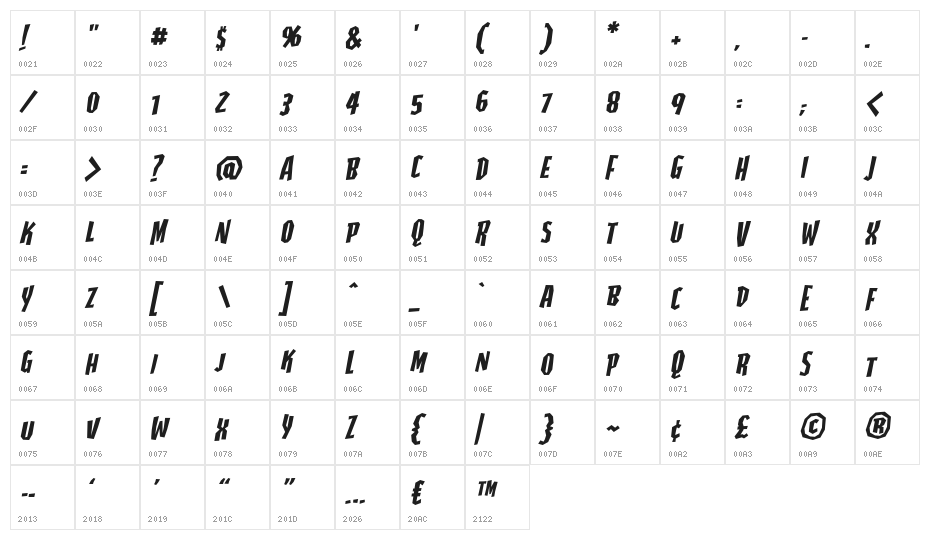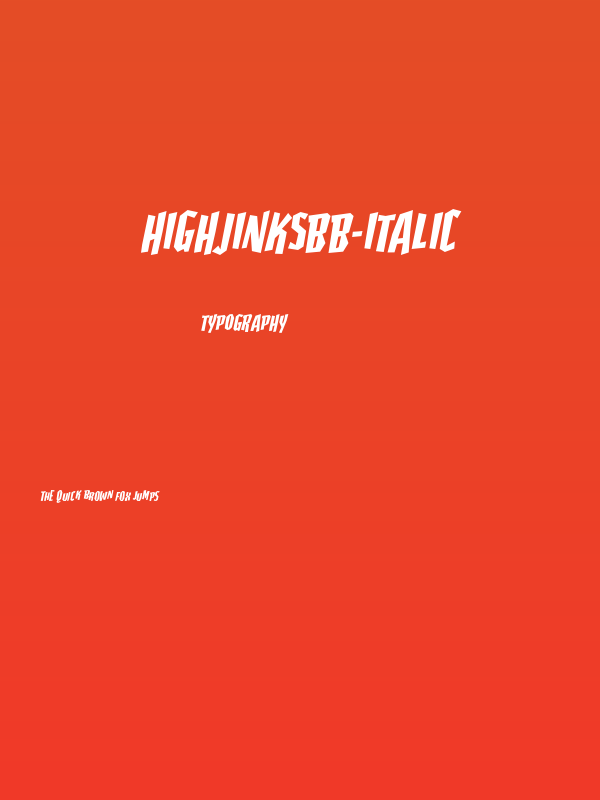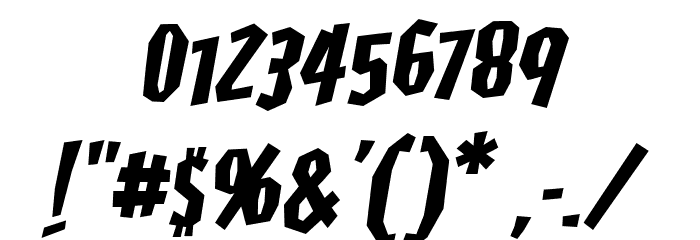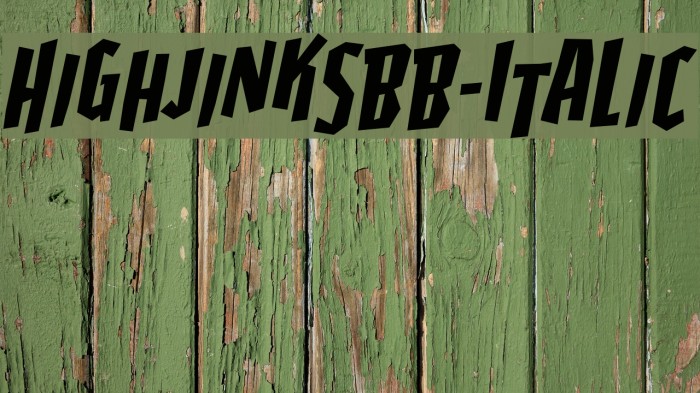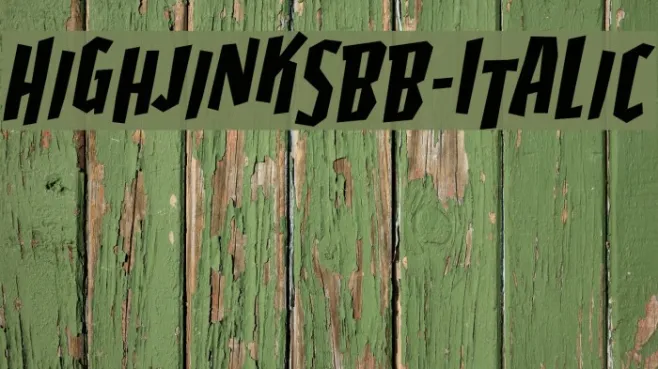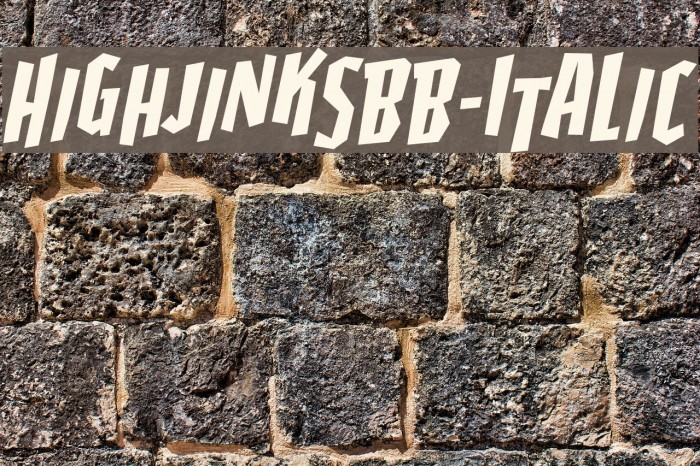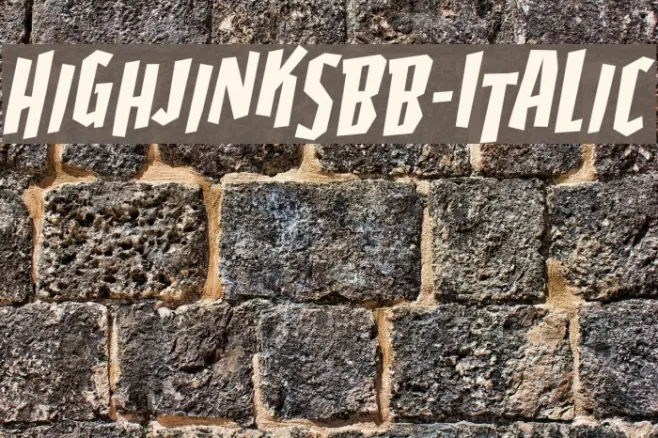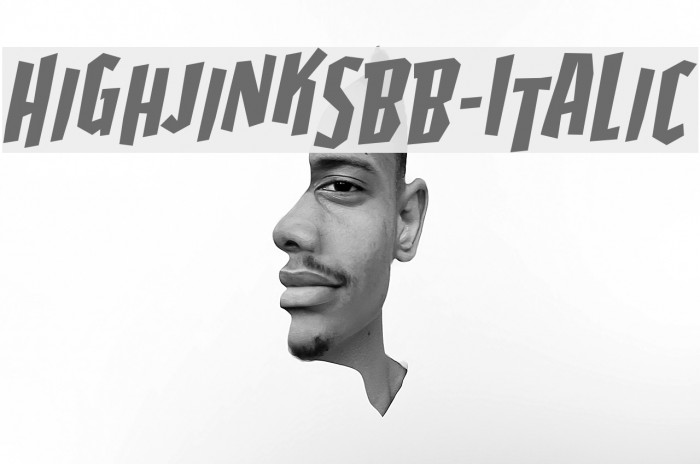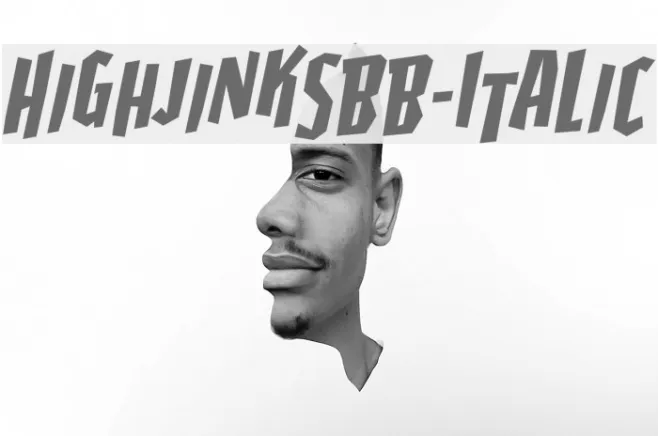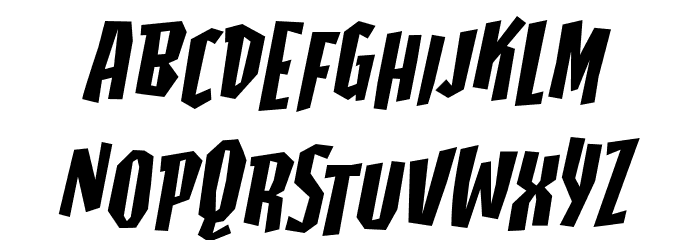
HighjinksBB-Italic Font
HighjinksBB-Italic Description
This font features a bold and dynamic style with a distinct italic slant, giving it a sense of motion and energy. The characters are sharply angled, with thick strokes and a slightly condensed appearance, creating a strong visual impact. The uppercase and lowercase letters maintain a consistent style, with the uppercase being more pronounced. Numbers and special characters are designed to match the overall aesthetic, ensuring uniformity across all elements. The font's design is both modern and playful, making it suitable for projects that require a bold statement.
| Width | Condensed |
| Overall Style | Modern, Energetic |
| Proposed Projects | Ideal for use in posters, logos, branding materials, and any design requiring a bold, energetic typeface. |